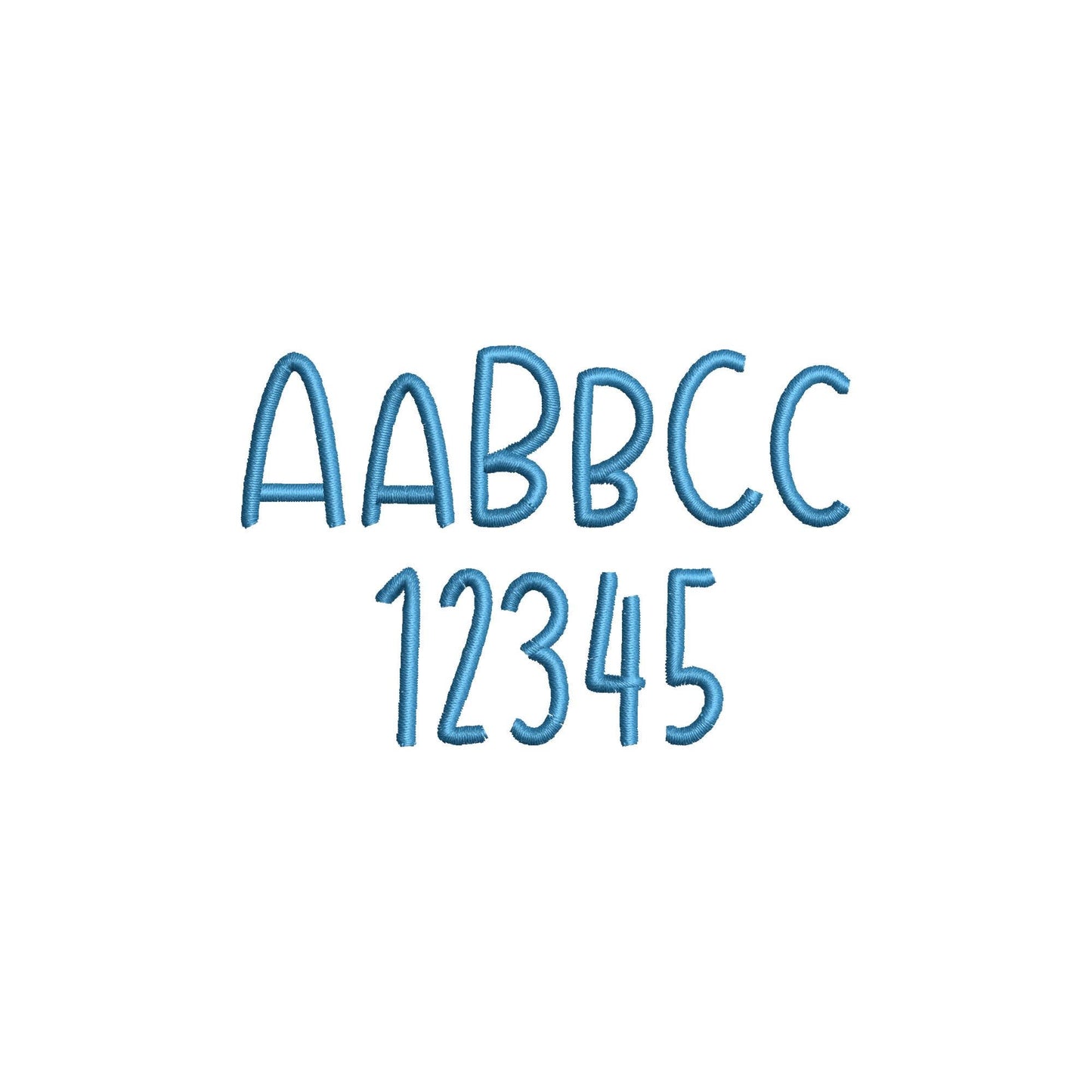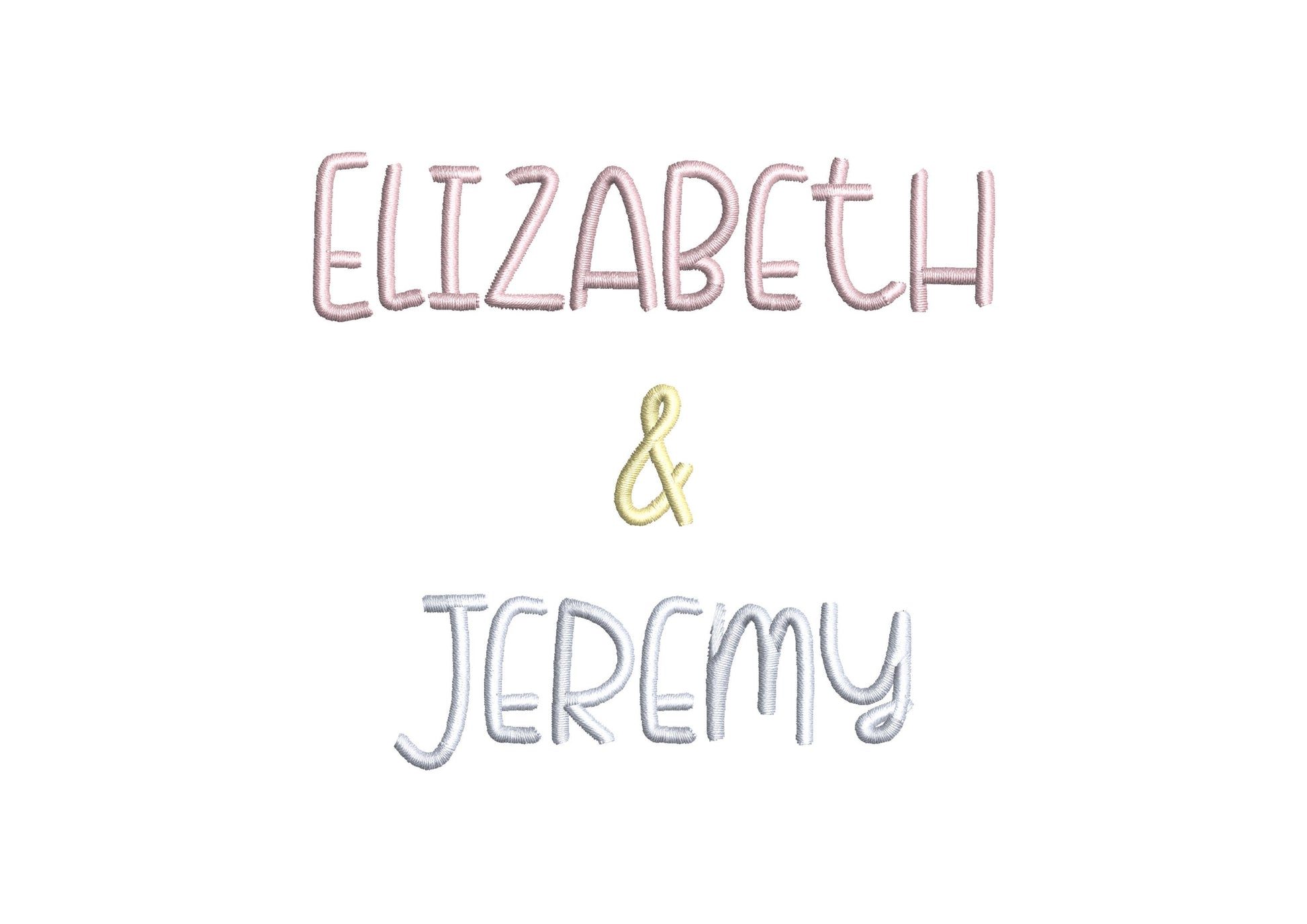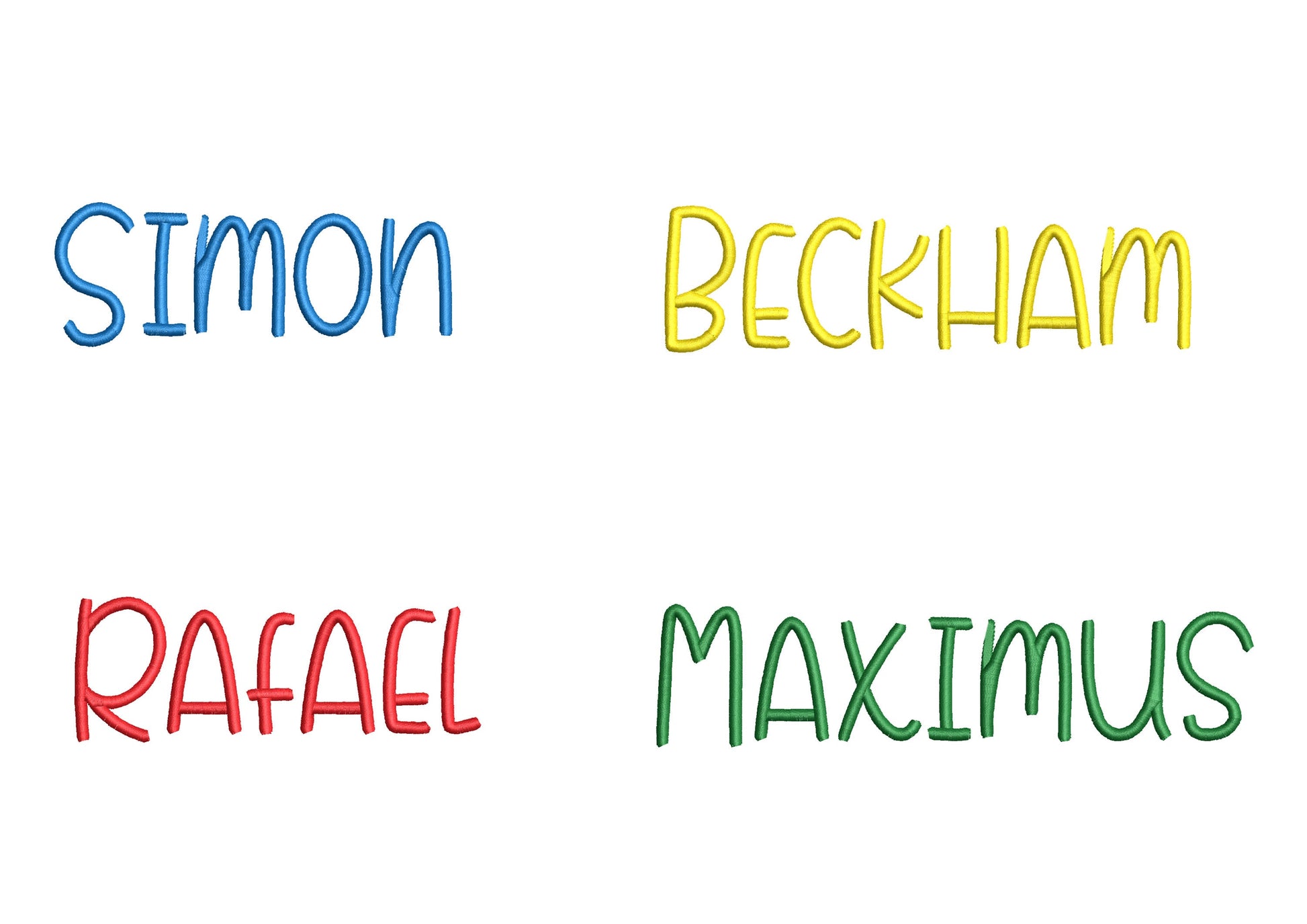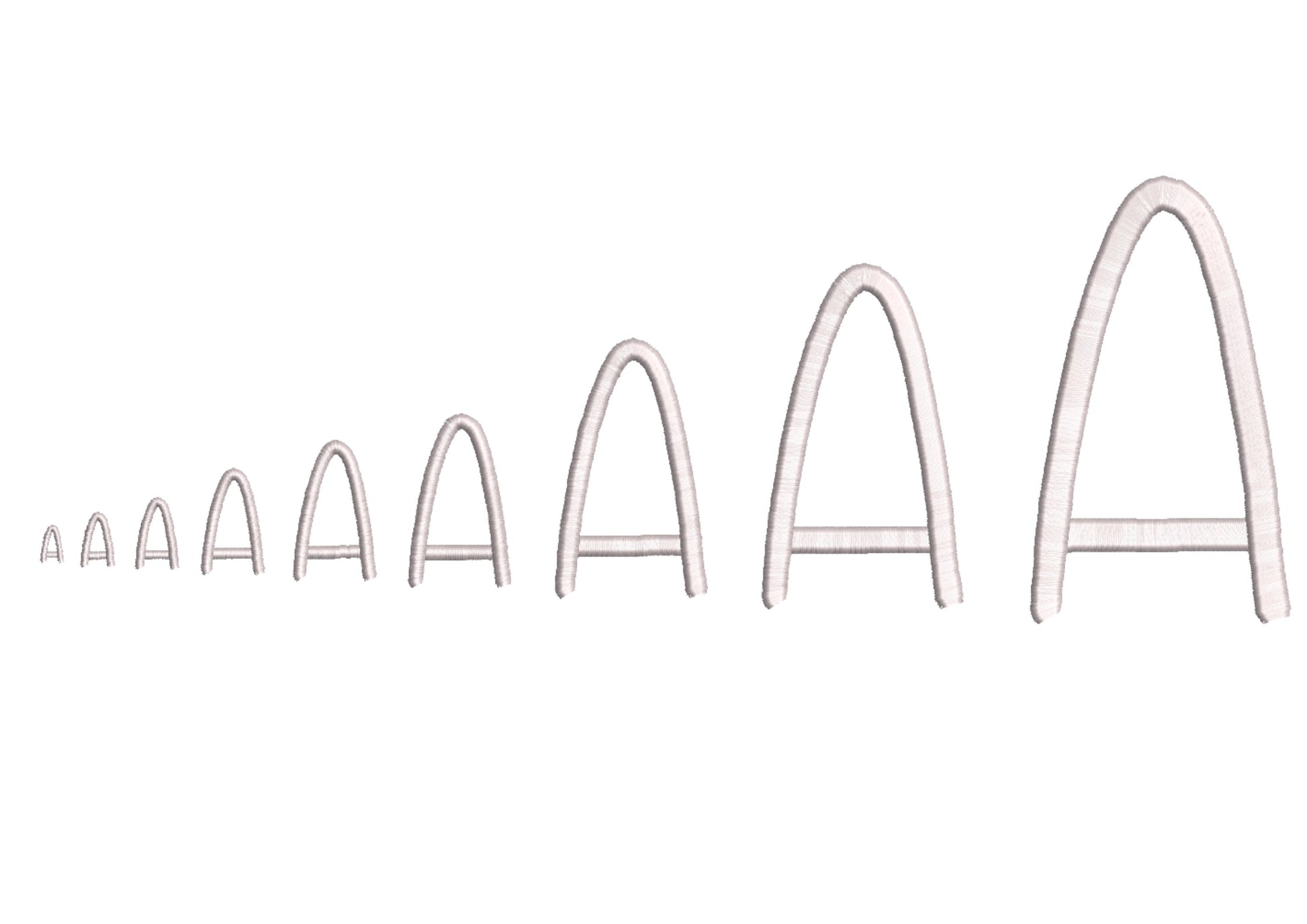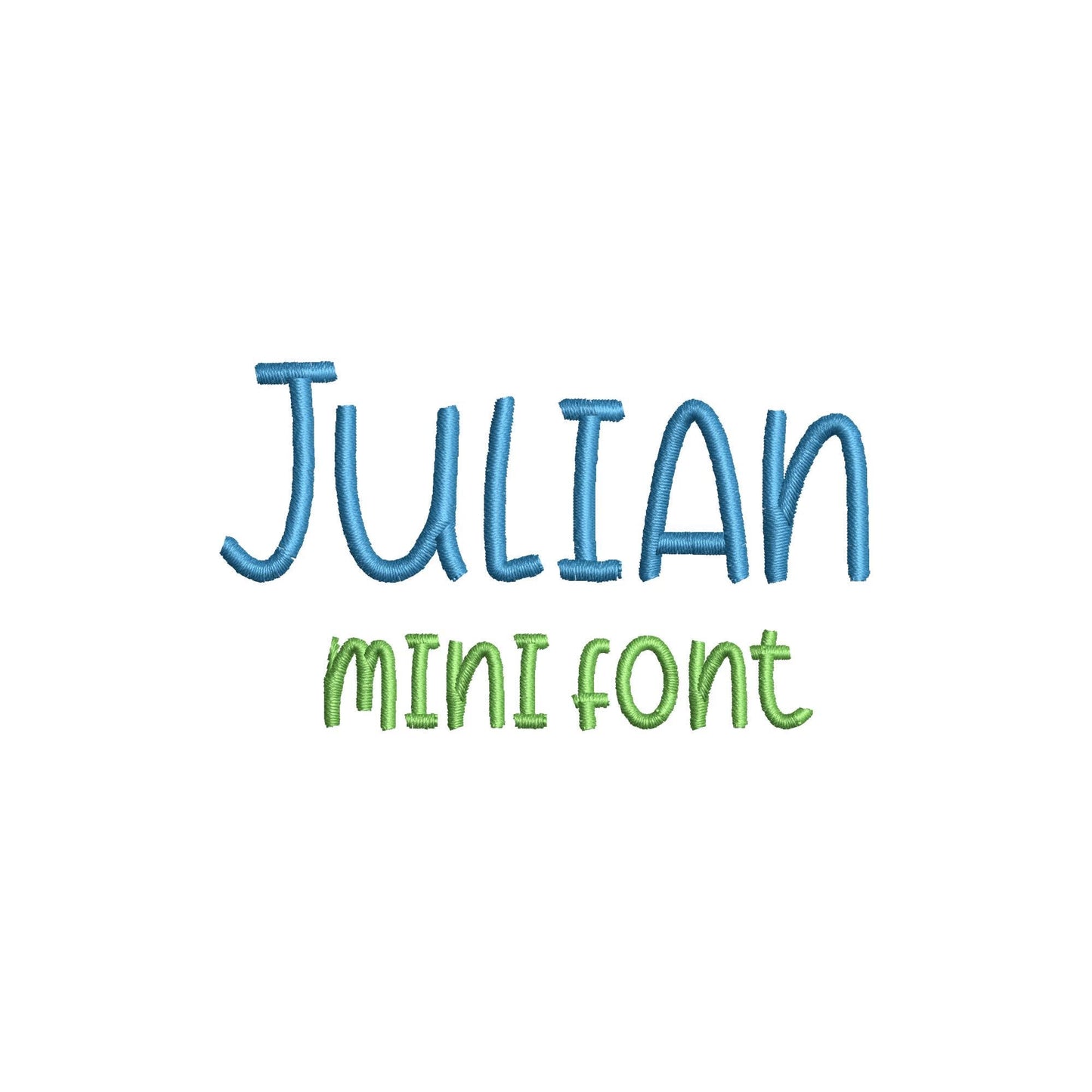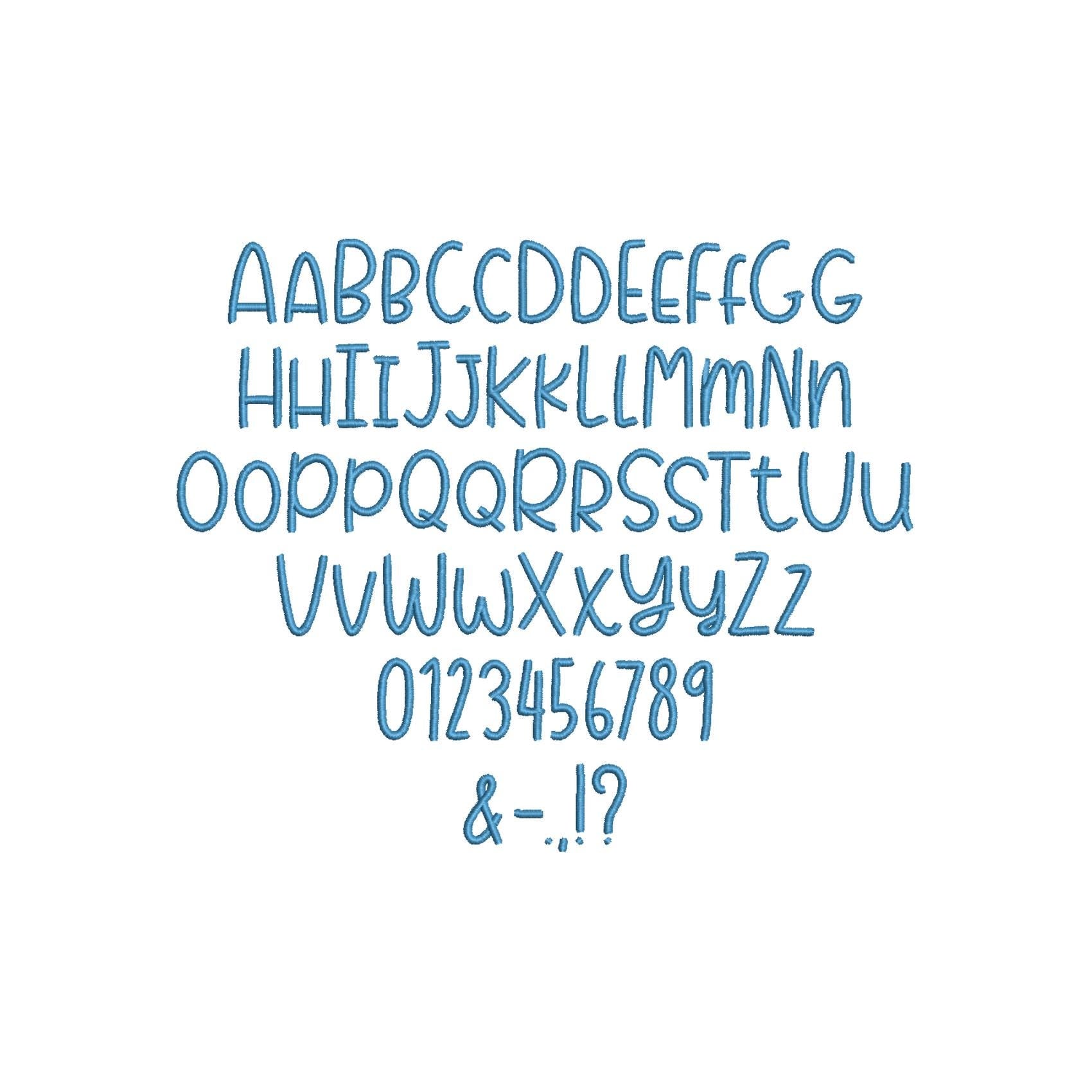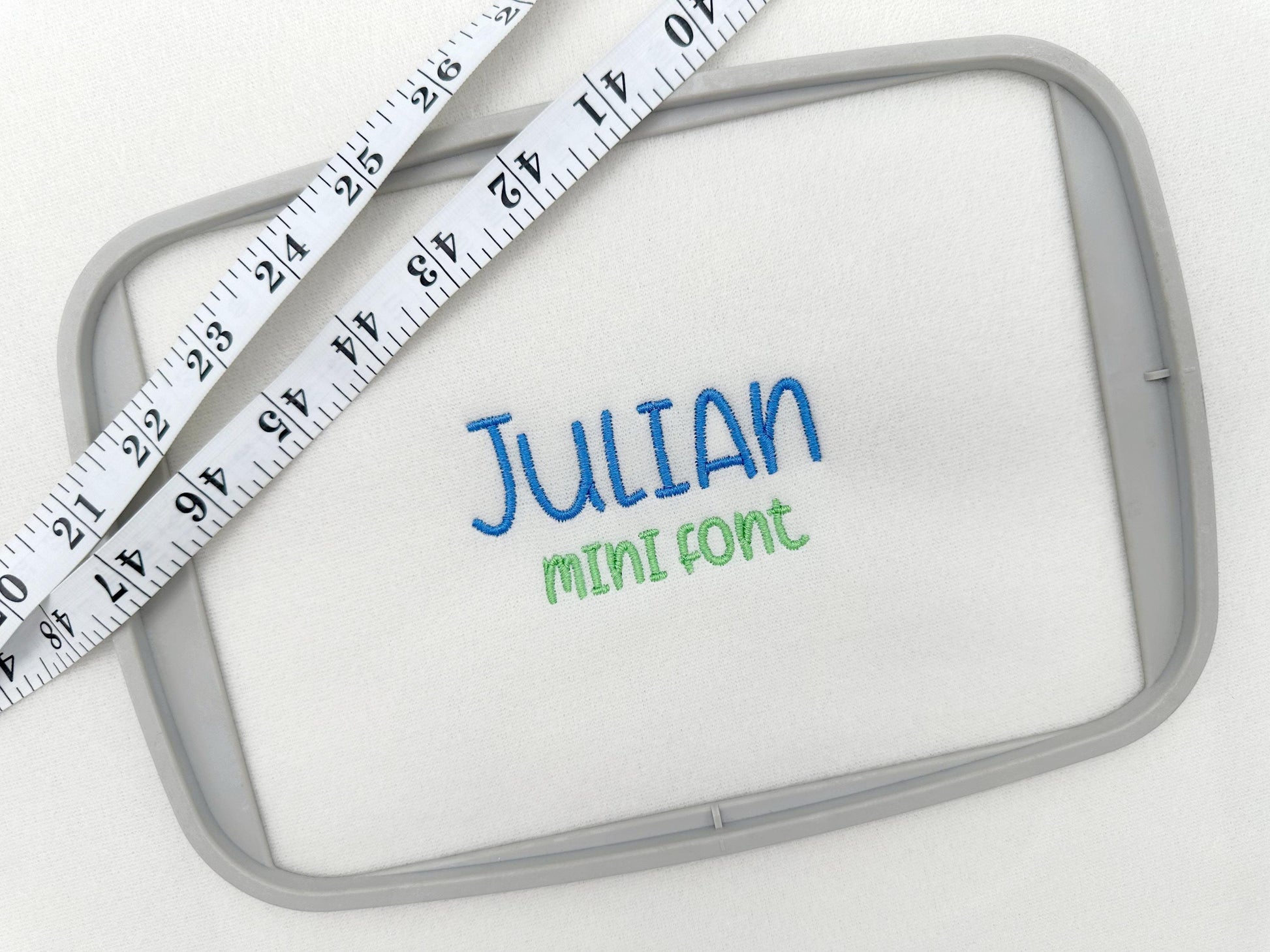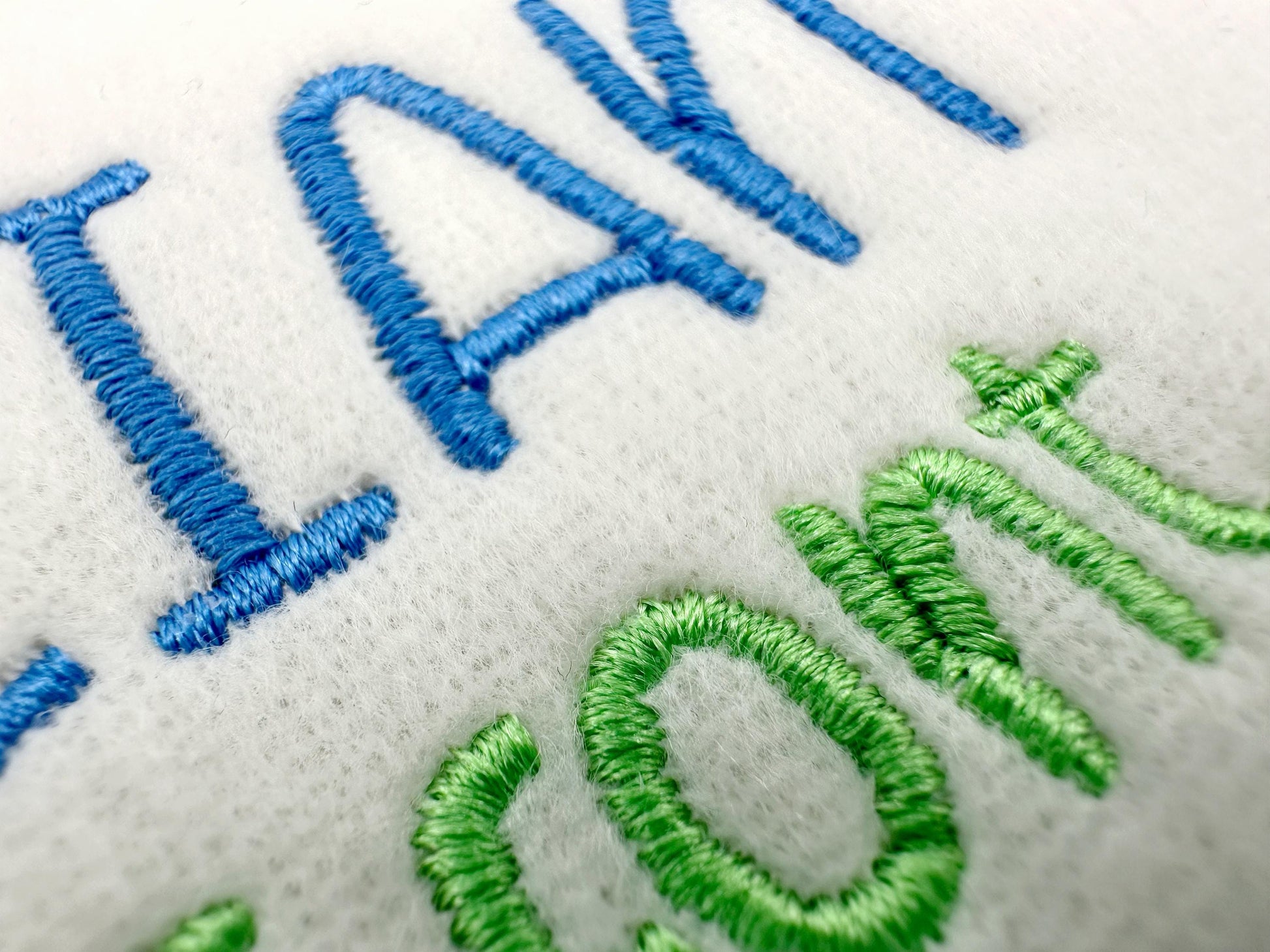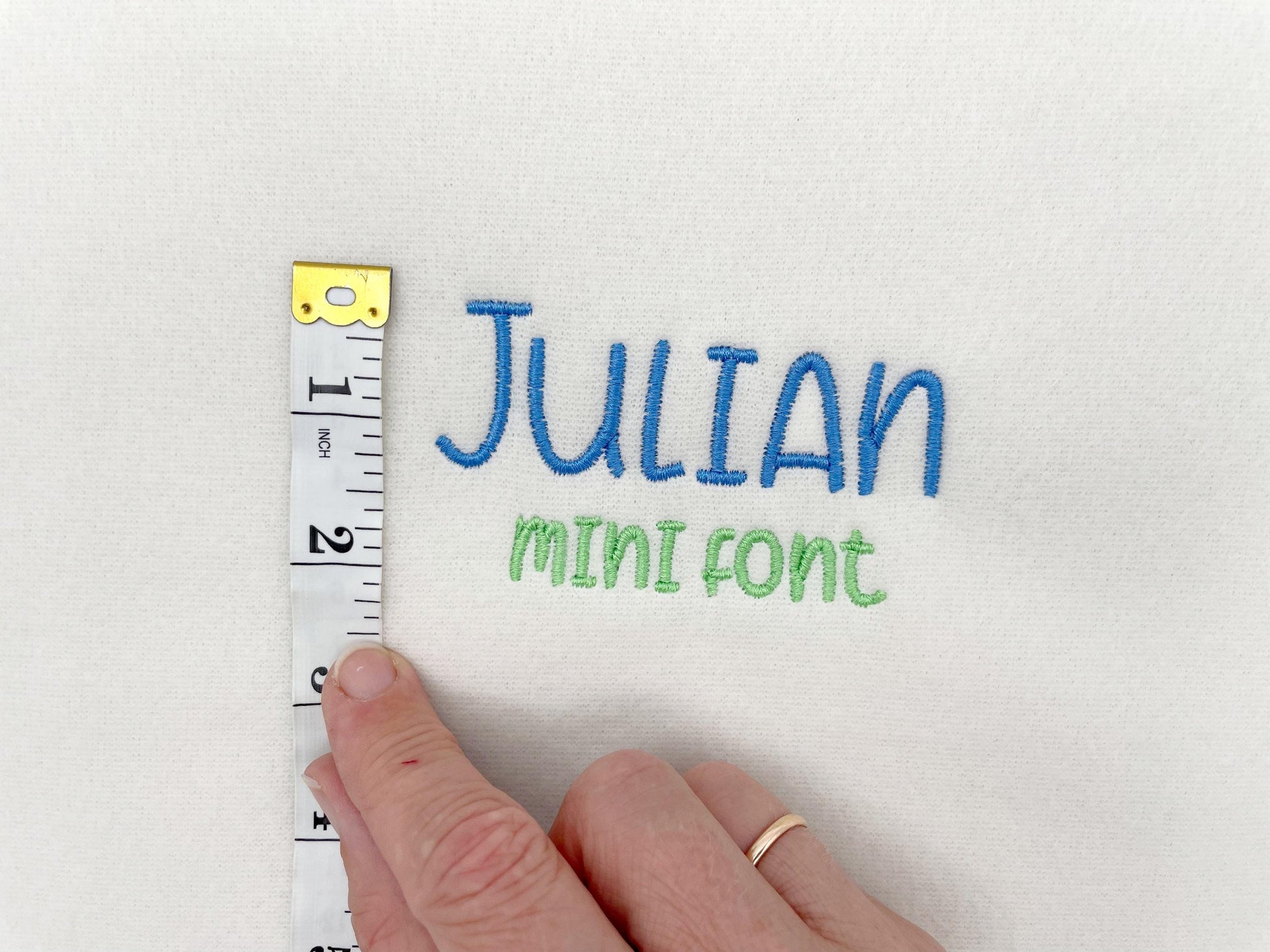
Best mini Font Julian
Or click to open the linkA satin stitch font that works from tiny to large sizes. Great for baby and kids' names, monograms and labels.
The letters come in nine sizes: 0.3, 0.5, 0.7, 1, 1.4, 1.7, 2.6, 3.4 and 4.4 inches. Smooth satin stitch letters. Includes uppercase and lowercase letters, numbers 0 to 9 and punctuation.
- Satin stitch font, mini to large
- 9 sizes, 0.3 to 4.4 in